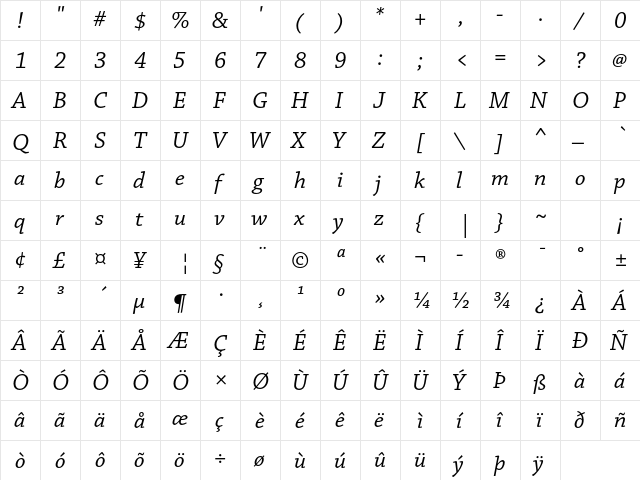
Chaparral Pro Italic Caption
| Designer | Carol Twombly |
Design Context for Chaparral Pro Typeface
Chaparral Pro is a composed and adaptable typeface that performs quietly and consistently across a wide range of design contexts. Its italic angle brings a sense of urgency and motion to the letterforms.
Pro Tip: Try Chaparral Pro for annotation and caption copy alongside an upright companion — the contrast in angle creates a dynamic but ordered typographic system.